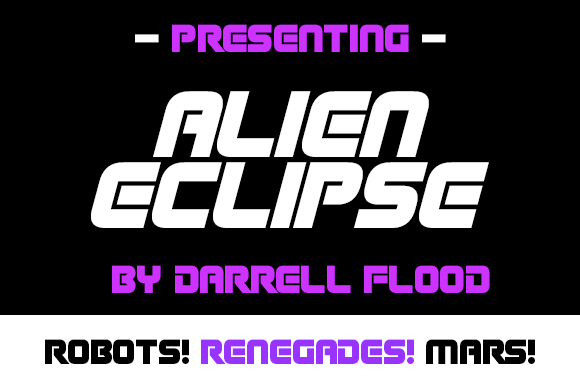
The Quest for the Perfect Sci-Fi Font: Discovering Alien Eclipse
I still remember the late nights spent working on a sci-fi themed project, scrolling through font after font, searching for that one special something that would bring my design to life. My client was specific: they wanted a futuristic, high-tech feel that would transport their audience to another galaxy. I was determined to deliver. That’s when I stumbled upon the Alien Eclipse Font – a game-changer for any designer, crafter, or creative hobbyist looking to add a touch of otherworldliness to their work.
First Impressions: A Futuristic Masterpiece
Alien Eclipse is a futuristic display font that checks all the right boxes. With its abundance of curves and cut-outs, this font is designed to add visual appeal to any sci-fi or high-tech piece. The first thing that caught my eye was its sleek, modern aesthetic – perfect for making a statement. Whether you’re working on a poster, a logo, or a website, Alien Eclipse is sure to turn heads.
Honest Review: The Good and the Great
So, what makes Alien Eclipse so special? Here are a few things I love about this font:
- ✨ Futuristic design: This font is perfect for sci-fi and high-tech projects, with a sleek and modern aesthetic that’s sure to impress.
- ✅ Ease of use: Alien Eclipse is incredibly easy to use, even for those who are new to working with fonts.
- 💻 OpenType features: This font comes with a range of OpenType features, including glyphs and stylistic alternates, giving you plenty of creative options.
Of course, no font is perfect, and Alien Eclipse is no exception. A few minor quirks to keep in mind:
- 🤔 Limited use cases: While Alien Eclipse is perfect for display text, it may not be the best choice for body text or smaller font sizes.
- ⚠️ Glyph compatibility: Some glyphs may not work seamlessly with all programs or platforms, so be sure to test them thoroughly.
The Designer Inspiration Behind Alien Eclipse
While the true story behind Alien Eclipse may be shrouded in mystery, it’s easy to imagine a designer who was inspired by the futuristic landscapes of sci-fi movies and video games. Perhaps they wanted to create a font that would transport users to another world – a world of sleek skyscrapers, advanced technology, and endless possibility.
| Font Name | Alien Eclipse Font |
| Author | Dadiomouse |
| Q: What type of projects is Alien Eclipse best suited for? | A: Alien Eclipse is perfect for sci-fi and high-tech projects, including posters, logos, websites, and more. |
| Q: Can I use Alien Eclipse for body text? | A: While Alien Eclipse is perfect for display text, it may not be the best choice for body text or smaller font sizes. |
| Q: Does Alien Eclipse come with OpenType features? | A: Yes, Alien Eclipse comes with a range of OpenType features, including glyphs and stylistic alternates. |
| Q: Is Alien Eclipse easy to use? | A: Yes, Alien Eclipse is incredibly easy to use, even for those who are new to working with fonts. |